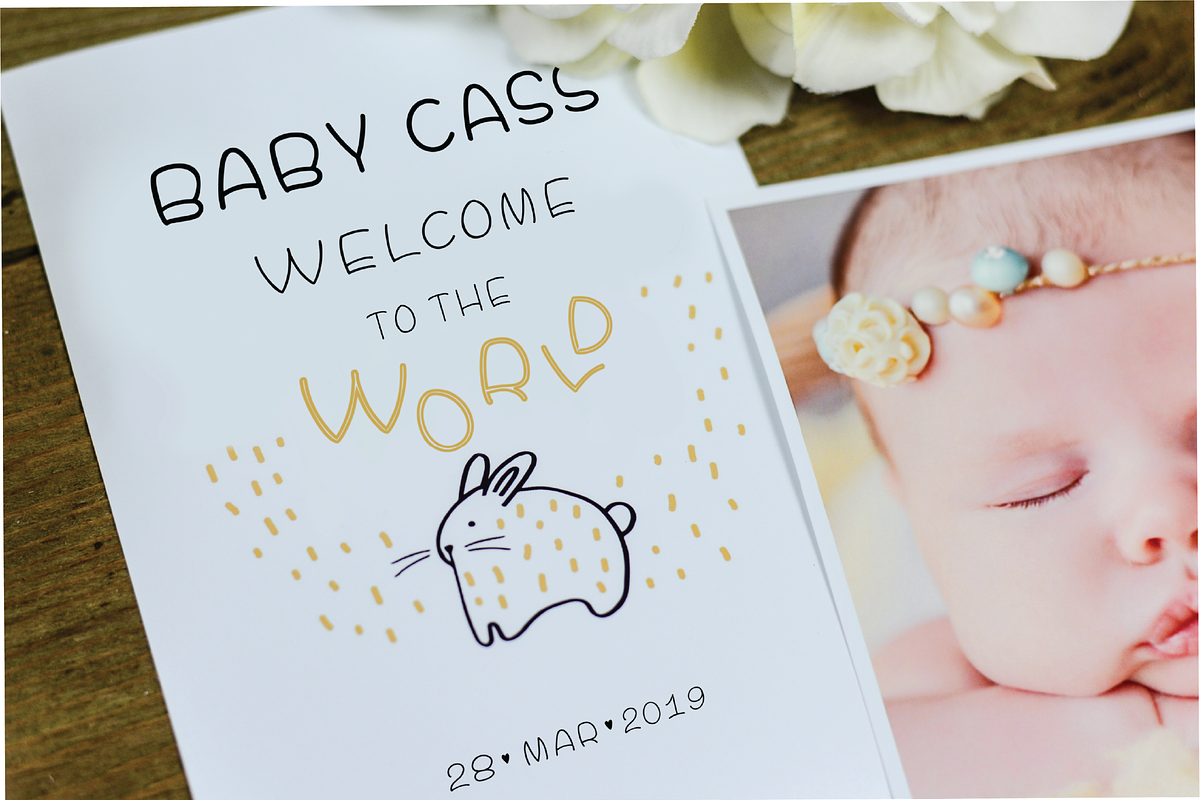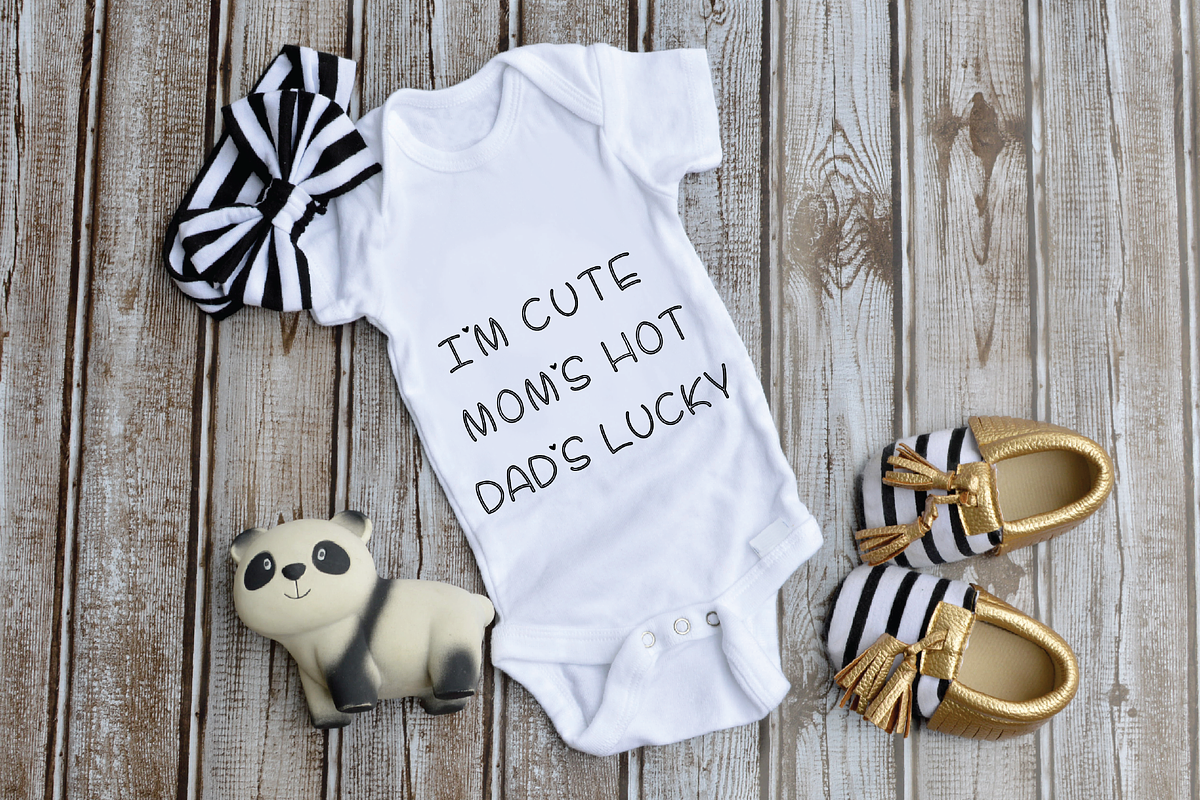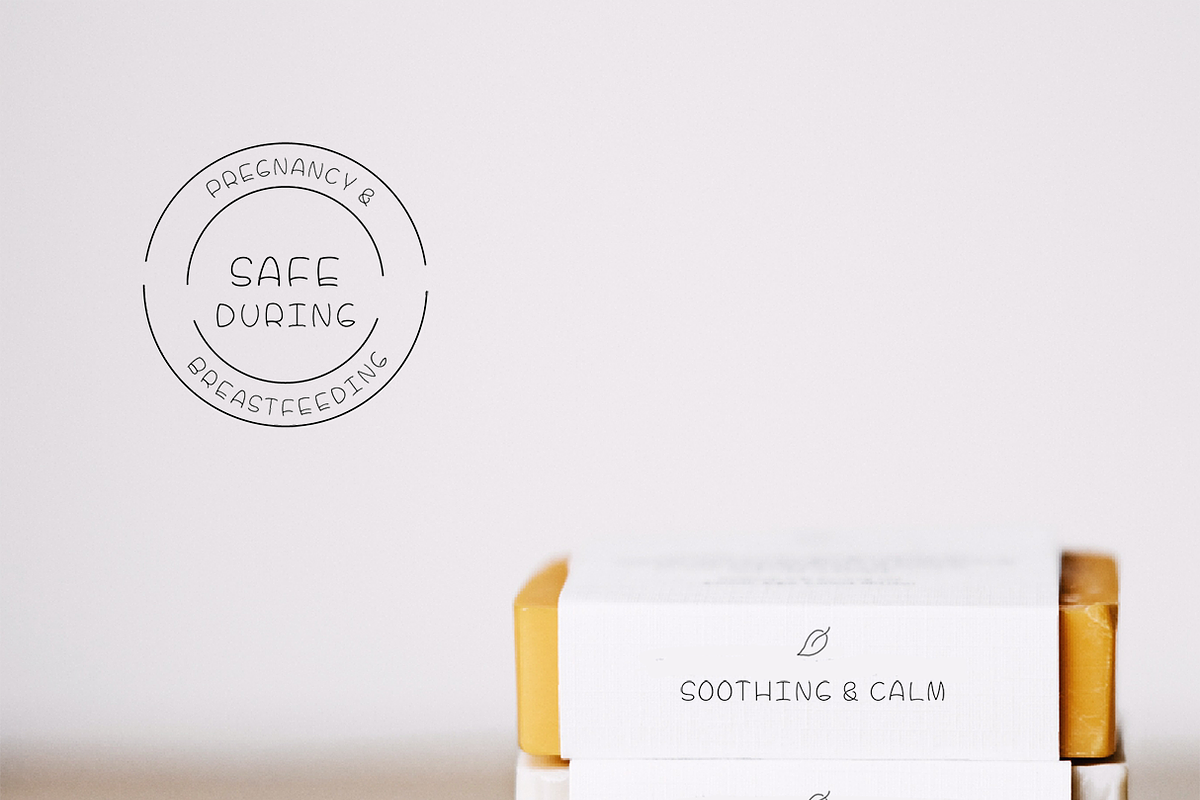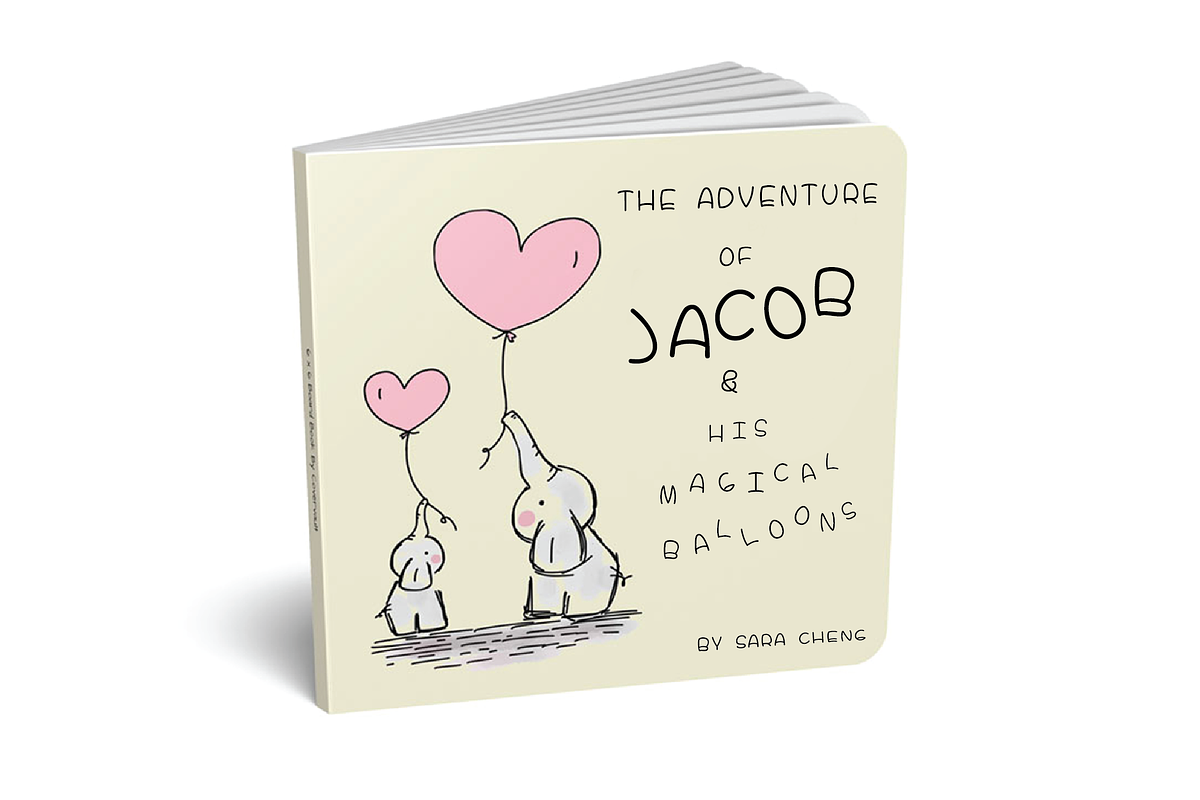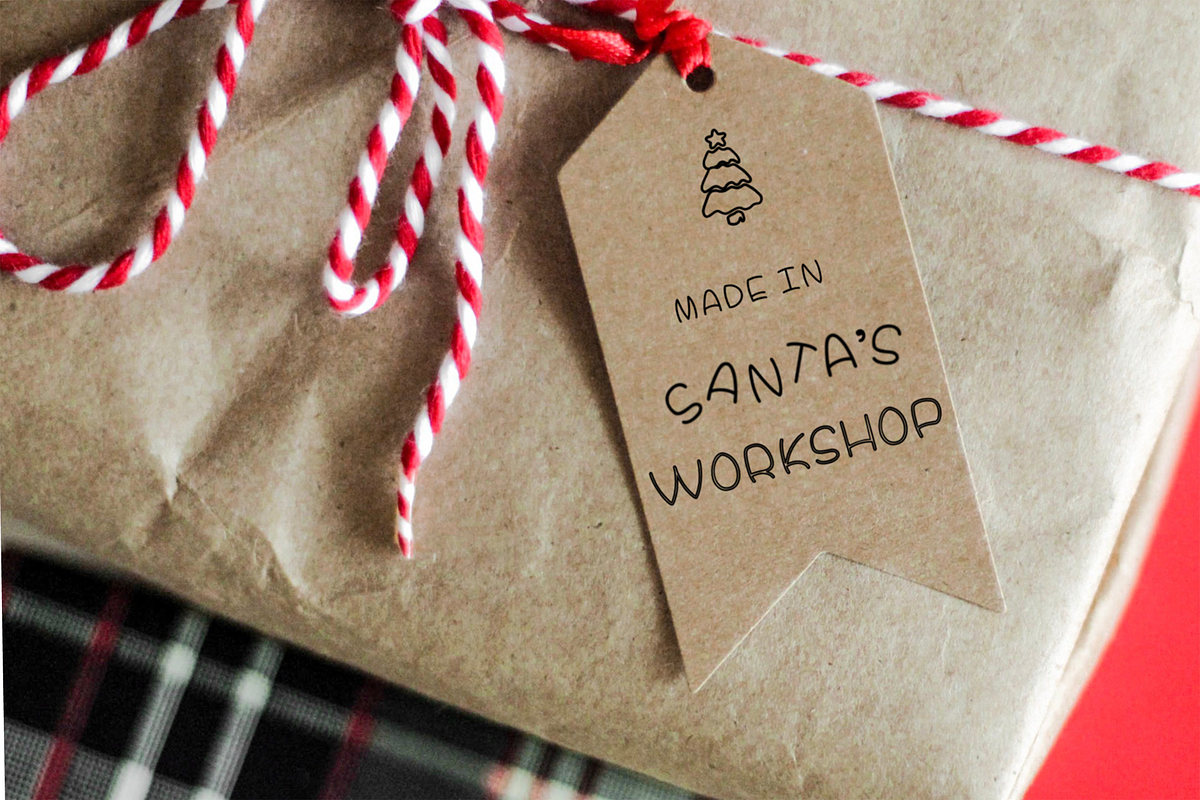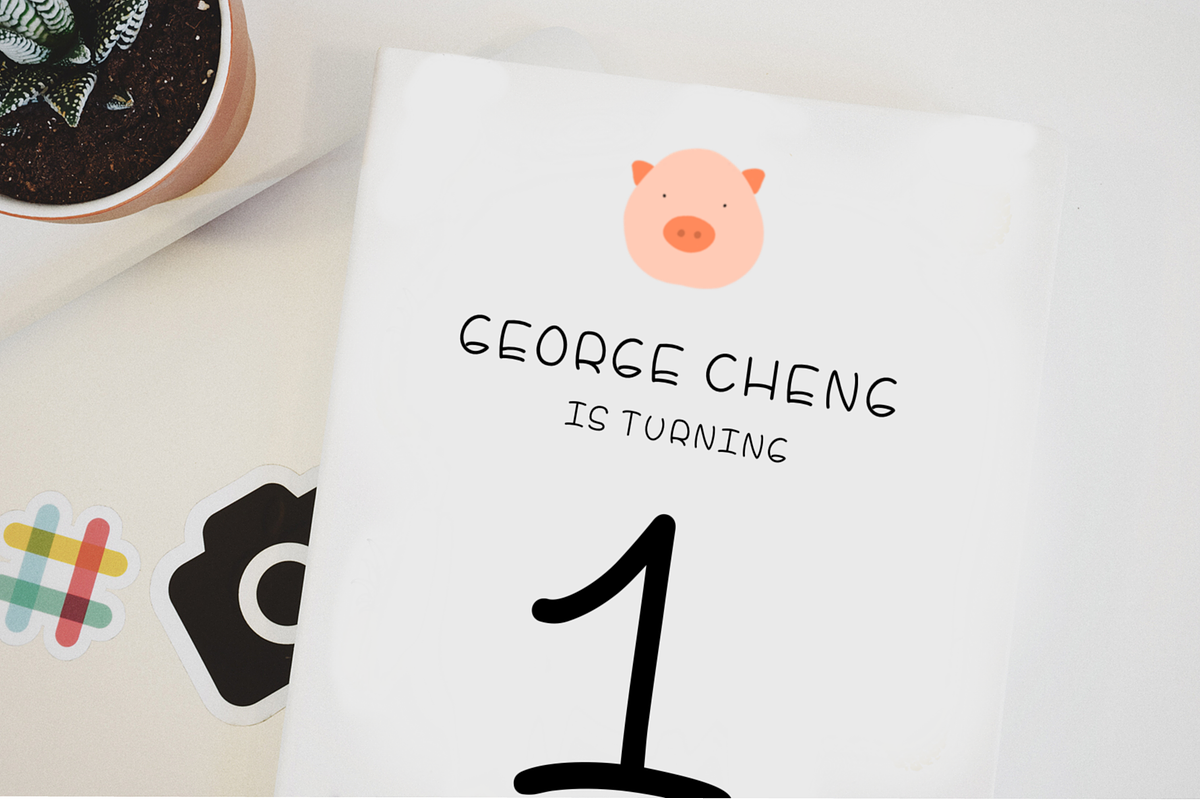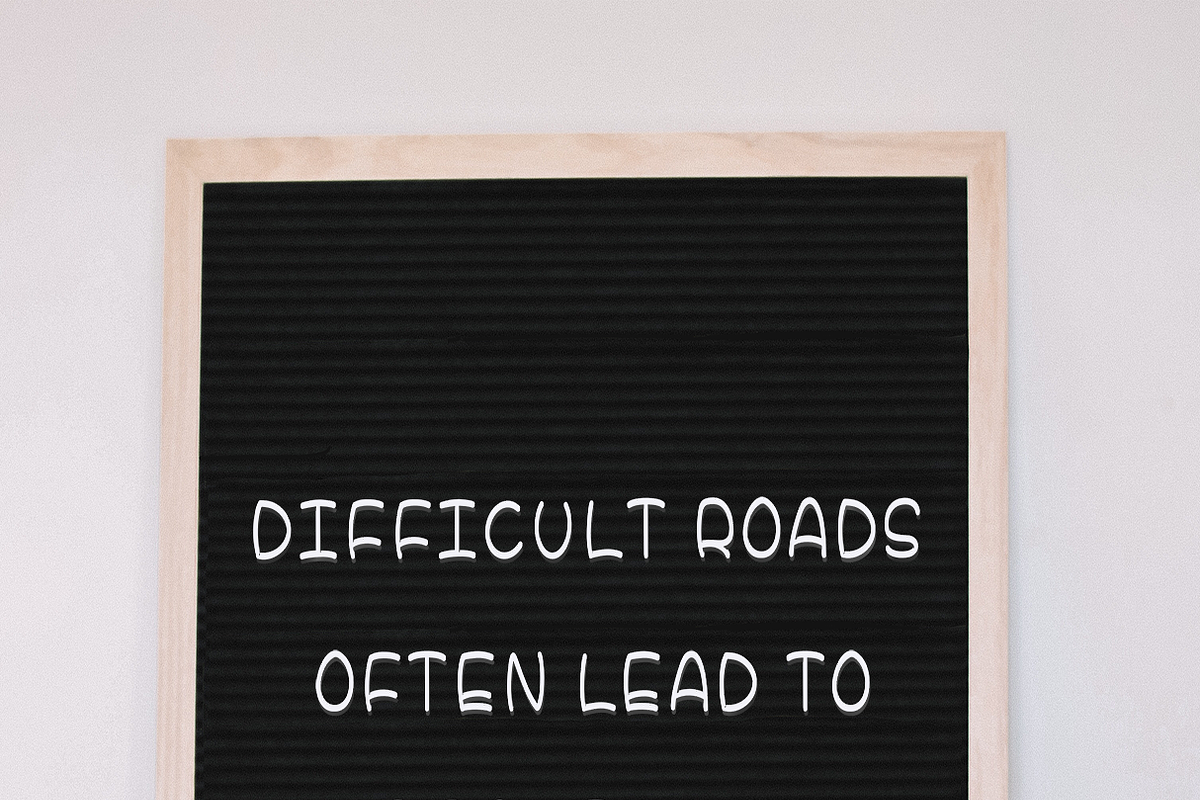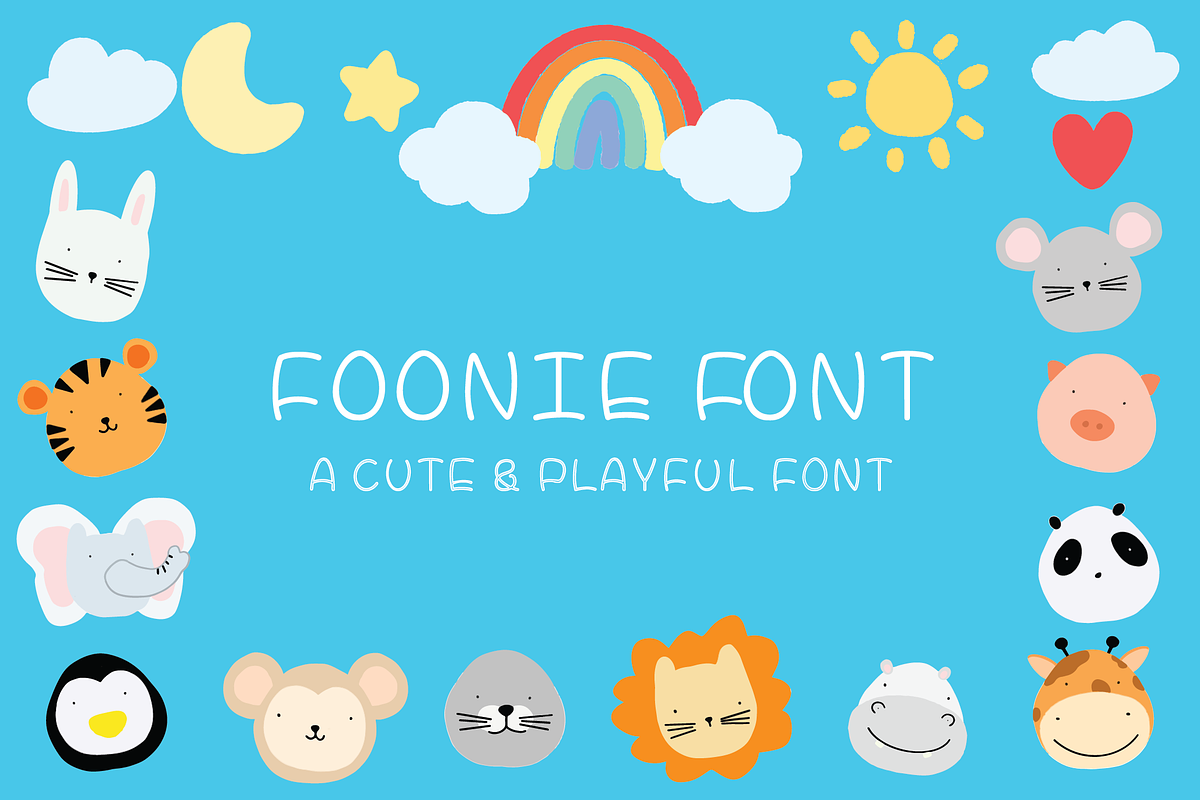
FOONIE (Trio Font & Extras)
A CUTE & PLAYFUL TRIO Font with Bonuses
FOONIE FONT is a handwritten script font that is perfect for Baby Decor, Greeting Cards, Story book, Prints, Branding, social media, packaging and more.
FOONIE (Trio Font & Extras) by Sala.Ink fits naturally into Branding, posters, packaging, typography.